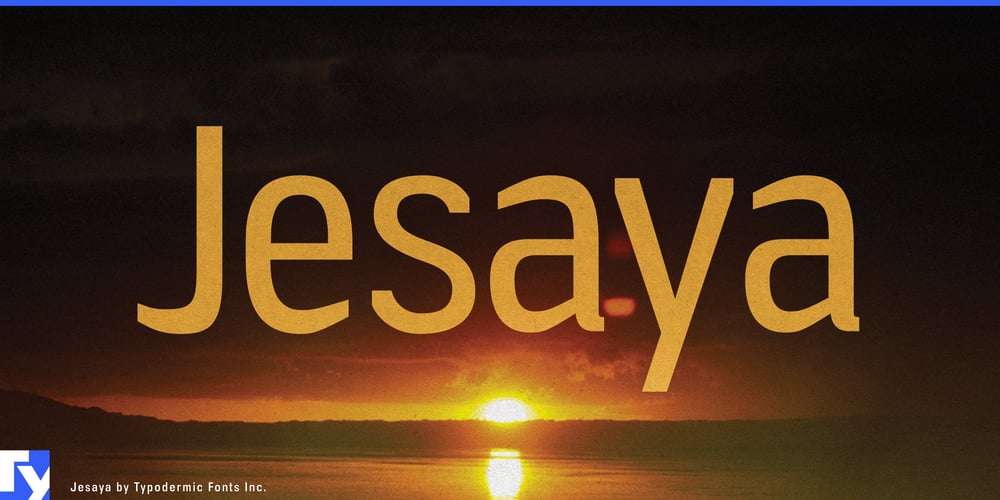
Jesaya
Jesaya font
Jesaya Font Family was designed by Ray Larabie and published by Typodermic. Jesaya contains 14 styles and family package options. Jesaya emerges as a testament to the harmony between precision and character in typeface design. This geometric sans serif captivates with its clean lines and sharp angles, yet reveals a subtle warmth through its masterfully chamfered ends. The result is a typeface that commands attention while maintaining an approachable demeanor—a rare balance in the world of typography.At its core, Jesaya embodies technical sophistication. Its meticulously crafted shapes speak the language of modern design, projecting an air of exactitude that resonates with discerning eyes. However, it’s the thoughtfully shaved sharp points that truly set Jesaya apart. These subtle modifications prevent typographic injury and infuse each character with a hint of personality, softening the typeface’s geometric rigidity without compromising its contemporary appeal.With a robust family of seven weights complemented by italics, Jesaya offers designers a versatile toolkit for expression. From whisper-thin headlines that exude elegance to bold statements that demand attention, this typeface adapts seamlessly to a spectrum of design challenges. Whether crafting a cutting-edge brand identity, designing an intuitive user interface, or composing engaging editorial layouts, Jesaya provides the flexibility to articulate your vision with precision and flair.Jesaya’s linguistic versatility is equally impressive. It stands ready to communicate across borders, supporting a vast array of Latin-based European writing systems. This extensive language coverage ensures that your message retains its impact and integrity, whether you’re reaching audiences in Warsaw or Lisbon, Helsinki or Madrid. In an increasingly globalized design landscape, Jesaya’s comprehensive character set is an invaluable asset, allowing your work to resonate on an international scale without compromise.Embrace Jesaya, and discover how its unique blend of geometric purity and subtle refinement can elevate your design work. It’s more than just a typeface—it’s a powerful tool for visual communication that speaks volumes in every carefully crafted curve and angle.